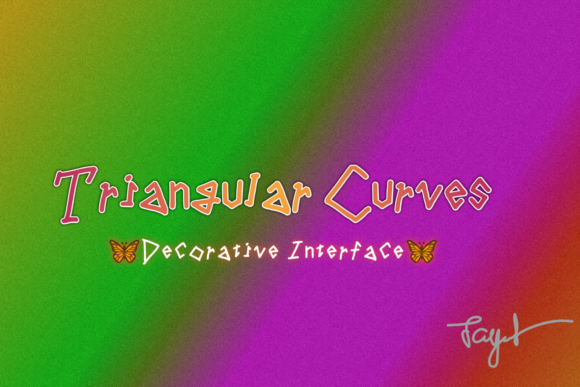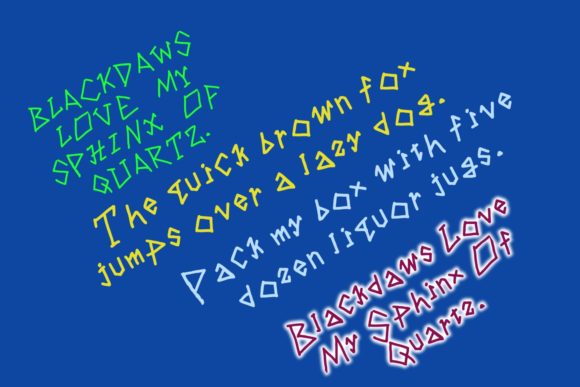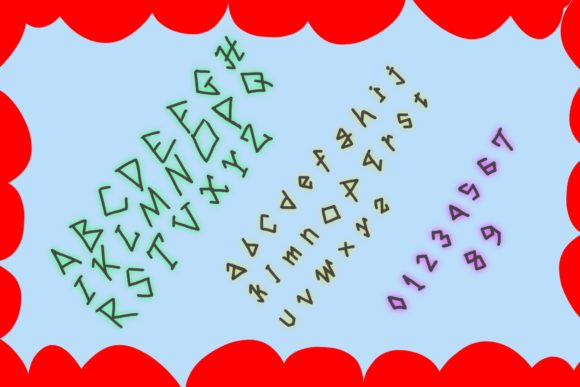
Triangular Curves
About Triangular Curves Font
Triangular Curves is a playful, geometrical and incredibly unique display font. It celebrates abstract shapes in all their eclectic brilliance. Add this font to your creative ideas and notice how it will make them stand out!